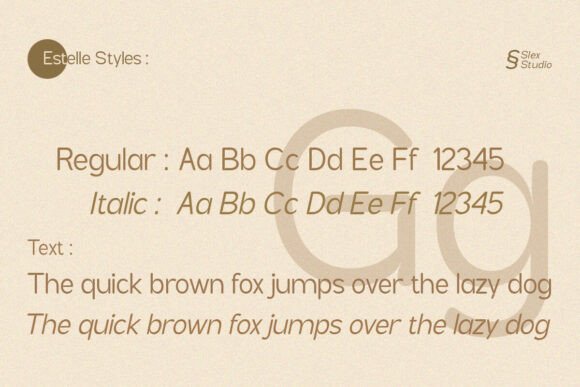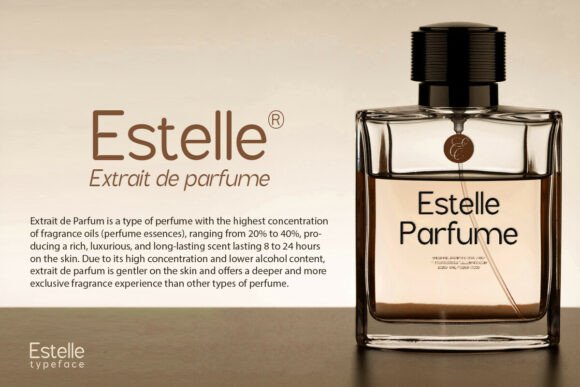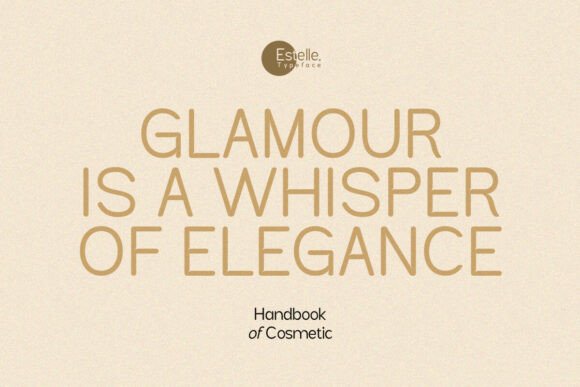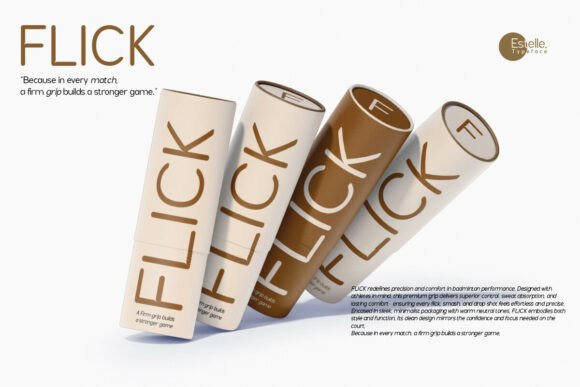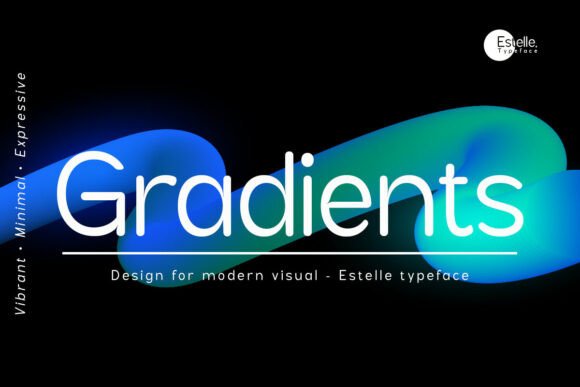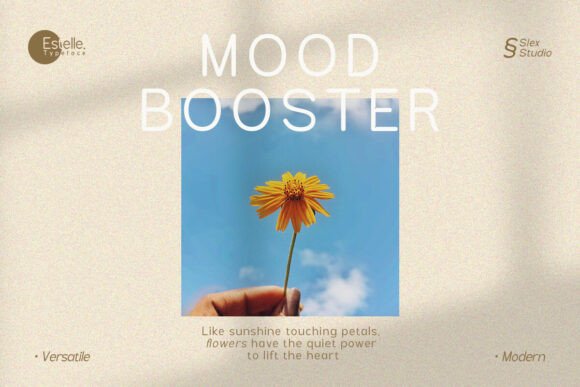
Discover the Elegance of Estelle Font: A Modern Sans-Serif Marvel
In the world of typography, few fonts manage to strike a balance between geometric precision and a soft, humanist touch. Estelle Font, however, achieves this delicate balance with remarkable finesse. Designed to be highly readable and versatile, Estelle is a modern sans-serif font that has captured the hearts of designers and crafters alike. In this article, we’ll explore the unique characteristics of Estelle Font and why it has become a go-to choice for various creative projects.
The Birth of Estelle: A Blend of Precision and Warmth
Estelle Font is the brainchild of a meticulous design process aimed at creating a typeface that embodies both modernity and approachability. Its smooth curves and balanced proportions bring a sense of warmth and friendliness, making it an ideal choice for designs that require a personal touch. At the same time, Estelle maintains a clean, professional appearance that aligns well with corporate and digital branding.
Key Features of Estelle Font
- Geometric Precision: Estelle’s design roots are firmly planted in geometric shapes, providing it with a structured and orderly appearance.
- Soft Humanist Touch: The font incorporates subtle humanist elements, such as slightly rounded corners and varying stroke widths, which add warmth and character.
- High Readability: Estelle is crafted to be highly legible, performing exceptionally well in both display and text settings.
- Versatility: Whether it’s for branding, editorial design, packaging, or digital interfaces, Estelle adapts seamlessly to any creative project.
Applications of Estelle Font
One of the standout qualities of Estelle Font is its versatility. Here are some of the areas where Estelle truly shines:
Branding
Estelle’s clean lines and approachable feel make it an excellent choice for branding. It can help create a strong, professional image while still conveying a sense of friendliness and approachability.
Editorial Design
In editorial design, readability is paramount. Estelle’s well-balanced design ensures that text flows smoothly, making it perfect for magazines, newspapers, and digital publications.
Packaging
For packaging, Estelle offers a modern look that can help products stand out on crowded shelves. Its legibility ensures that key information is easily communicated, while its aesthetic appeal enhances the overall design.
Digital Interfaces
In the digital realm, Estelle performs exceptionally well across various devices and screen sizes. Its clear and concise letterforms make it an excellent choice for websites, apps, and digital marketing materials.
Why Designers and Crafters Love Estelle
Designers and crafters appreciate Estelle for several reasons:
- Ease of Use: Estelle’s versatility means it can be used across a wide range of projects without the need for multiple typefaces.
- Timeless Appeal: Unlike some fonts that may quickly go out of style, Estelle’s classic design ensures it remains relevant for years to come.
- Emotional Connection: The font’s humanist elements help create an emotional connection with the audience, making designs feel more personal and engaging.
| Font Name | Estelle Font |
| Author | Slex_studio |
Estelle Font represents a significant achievement in modern typography, successfully merging geometric precision with a soft humanist touch. Its readability, versatility, and timeless style make it an invaluable asset for designers and crafters working on a variety of projects. Whether you’re looking to elevate your brand, enhance your editorial designs, create compelling packaging, or improve your digital interfaces, Estelle Font is an excellent choice. With Estelle, you can bring a sense of warmth, approachability, and professionalism to your work, ensuring it resonates with your audience.